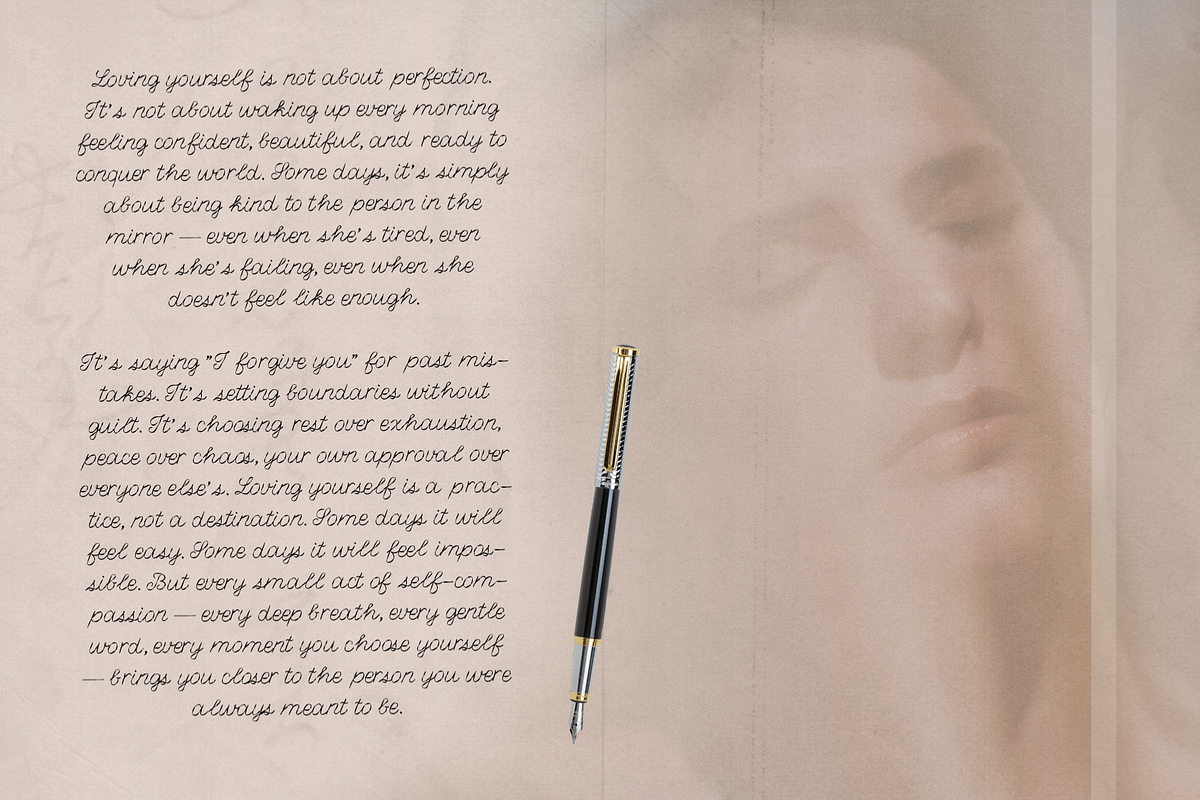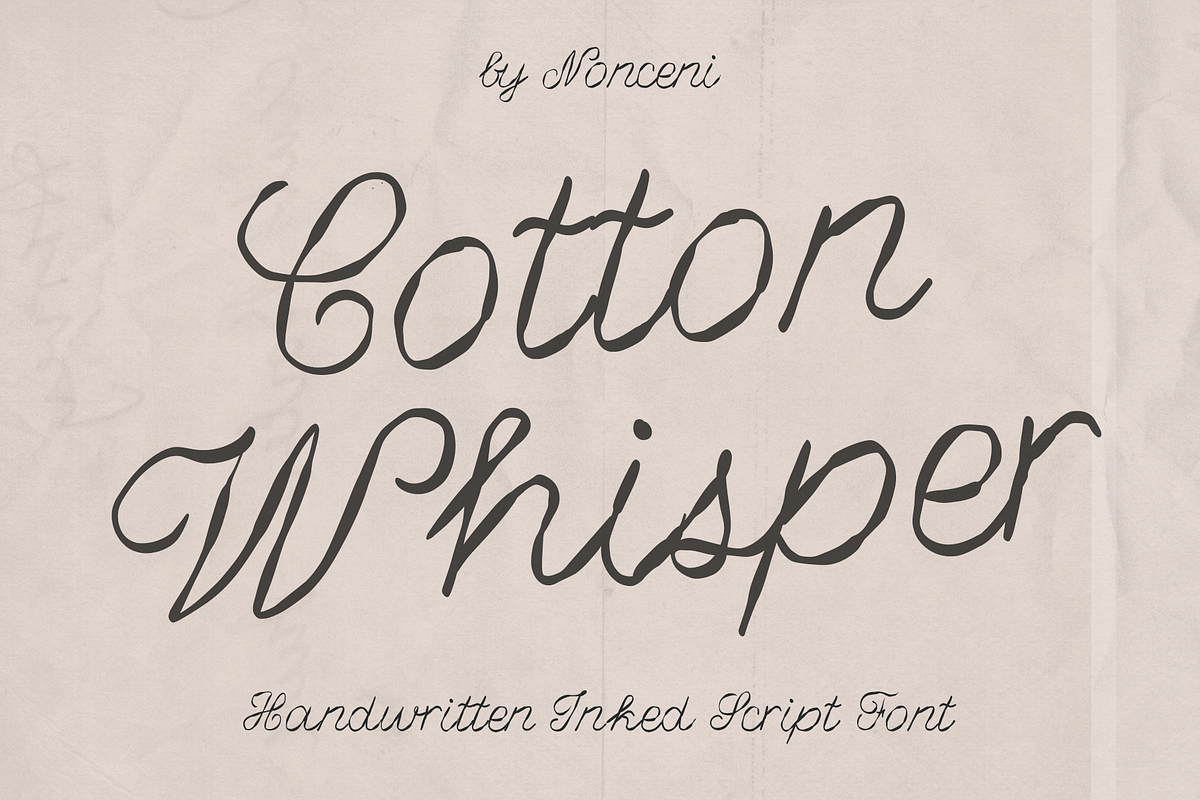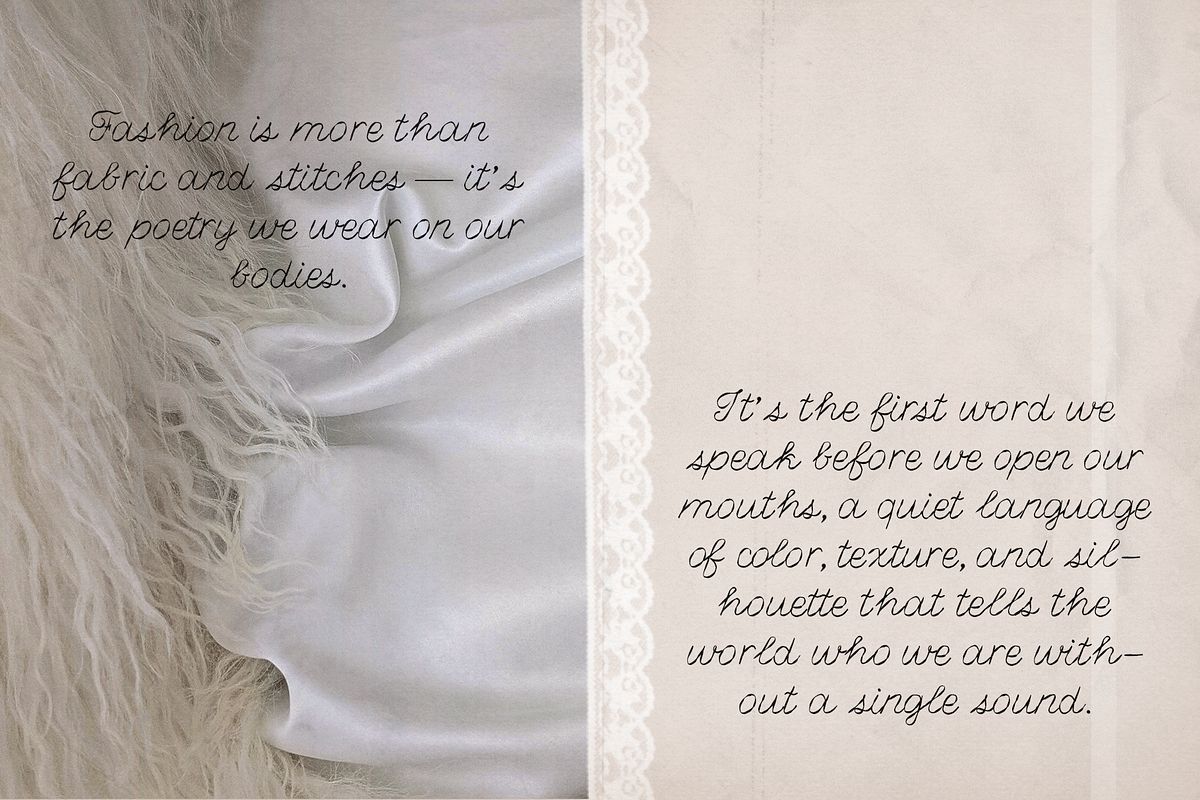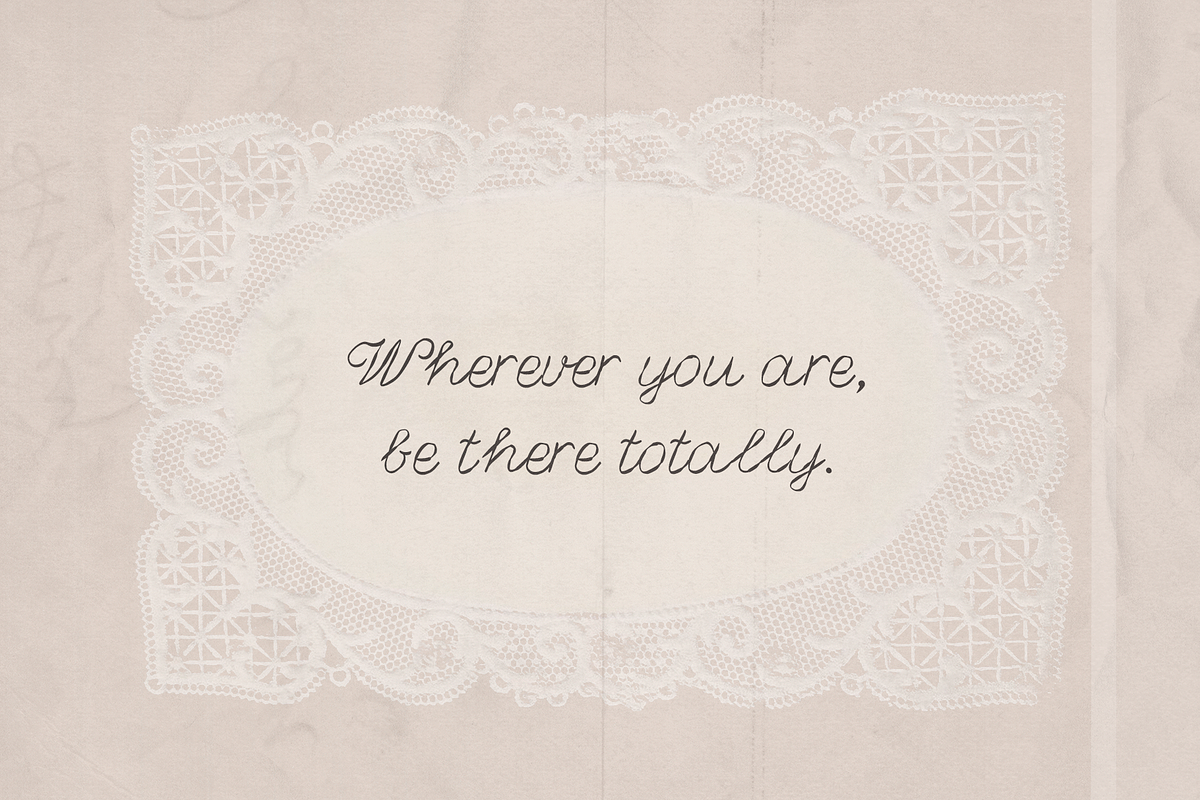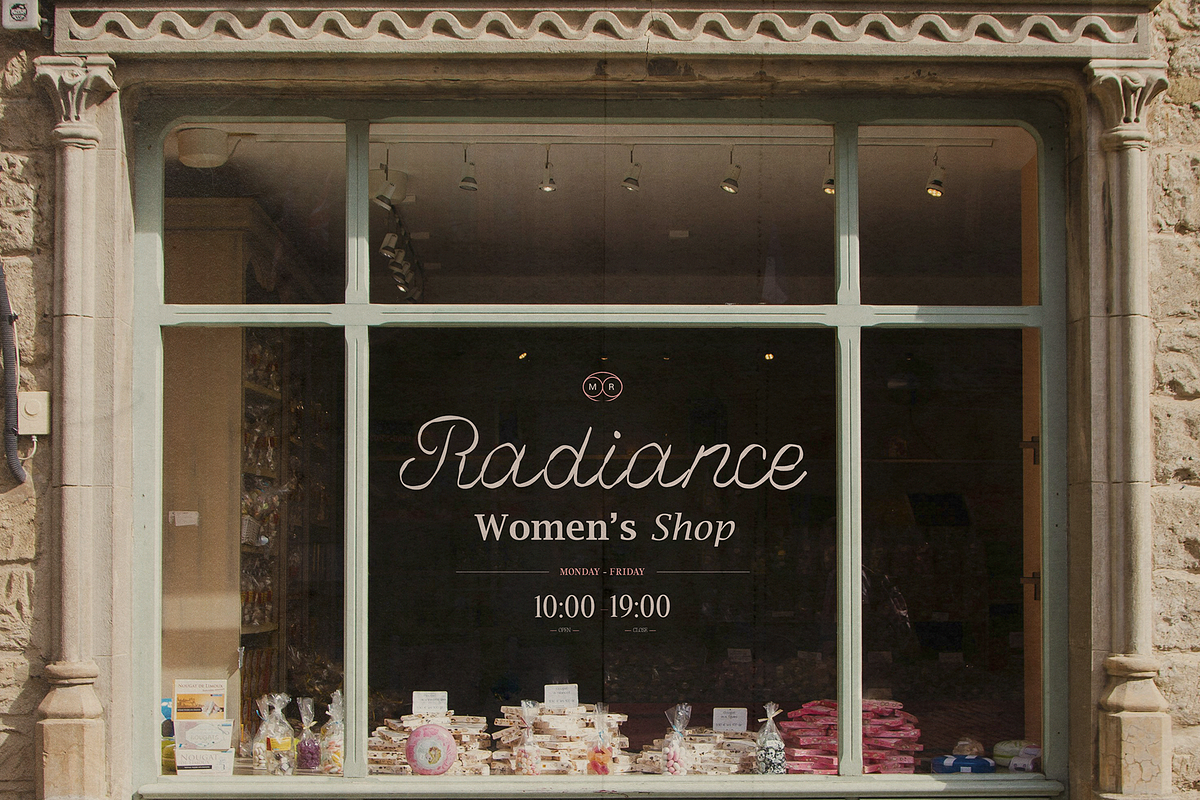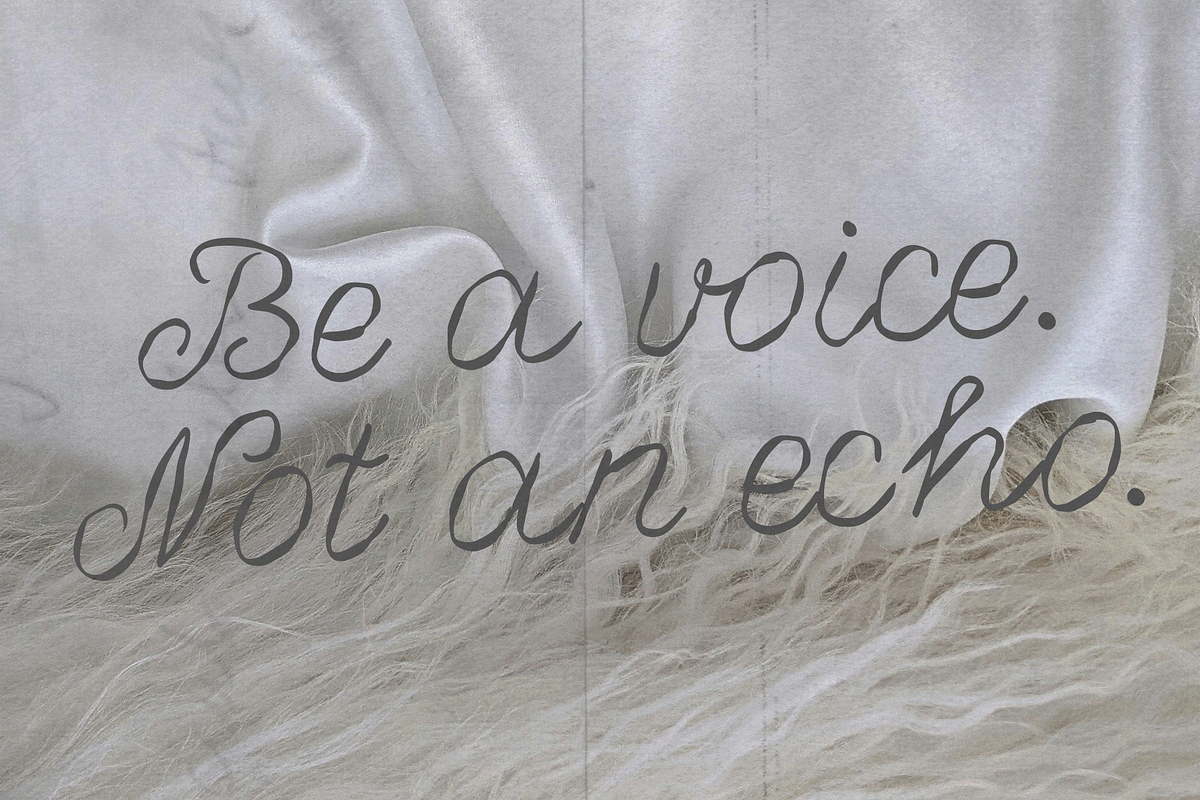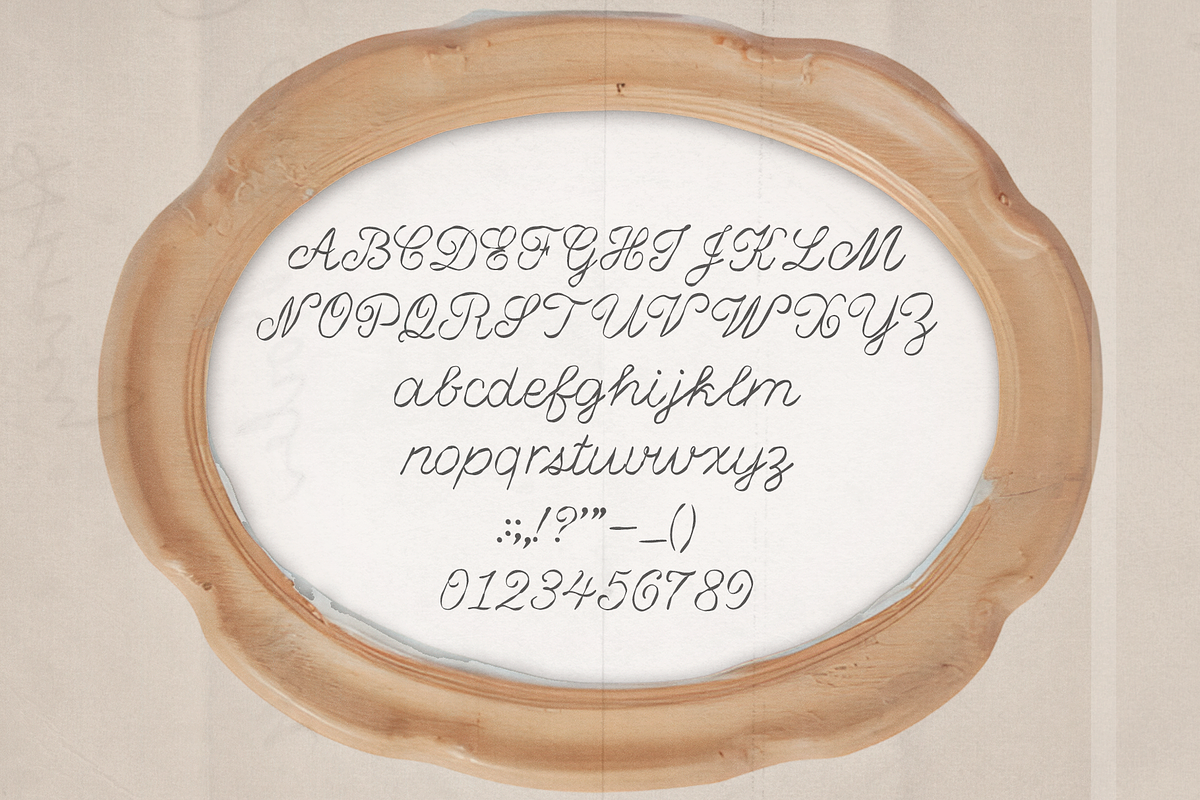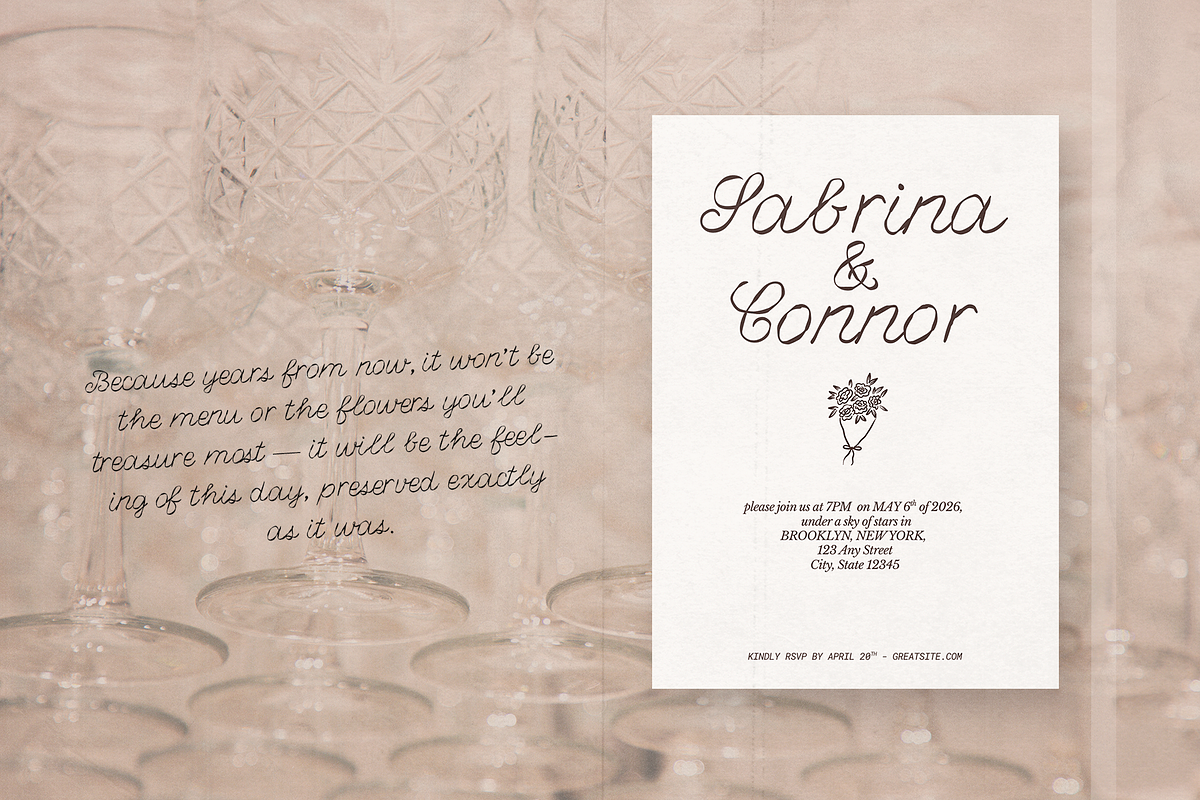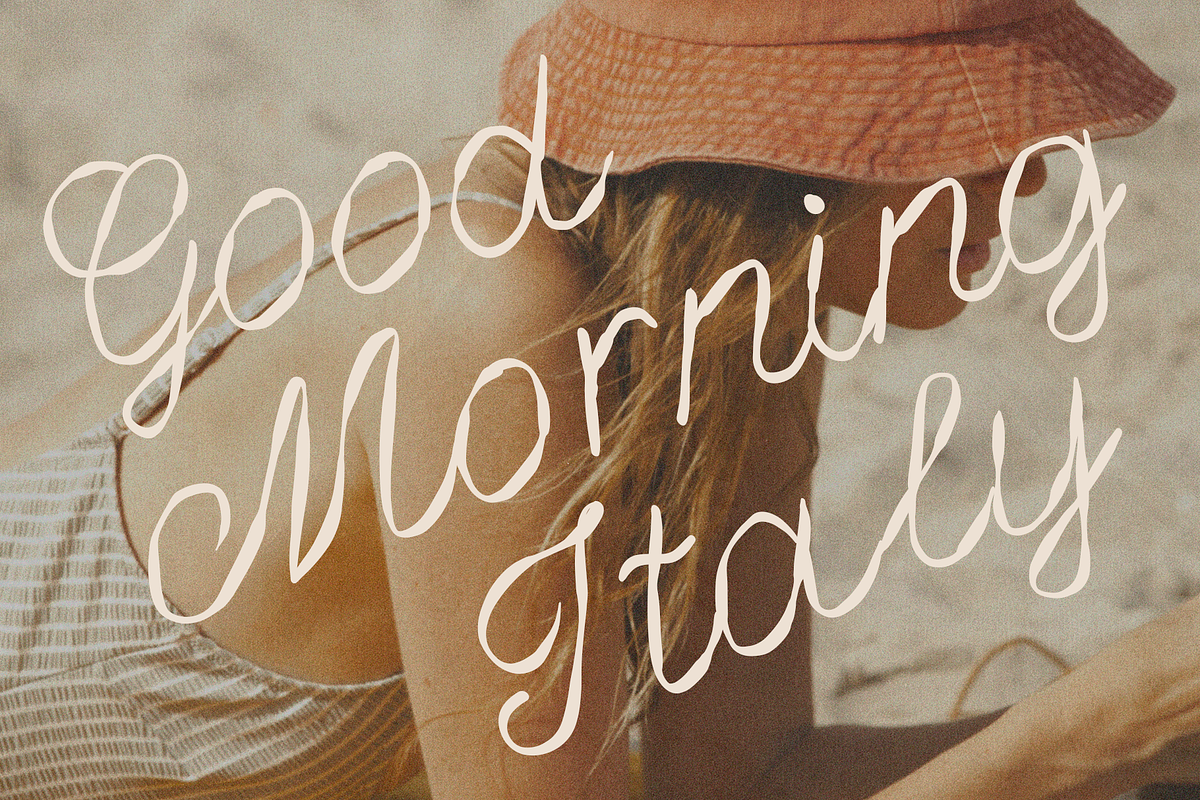
Cotten Whisper Elegant Ink Font
Cotten Whisper, your new go-to font for designs that need to feel real. Unlike rigid scripts, this font captures the charming imperfections of actual handwriting, making it perfect for brands that value authenticity and warmth.
Its clean lines ensure high readability even at smaller sizes, making it an excellent choice for:
Digital journals and planners
Product packaging
Pinterest graphics and blog headers
Personalized stationery